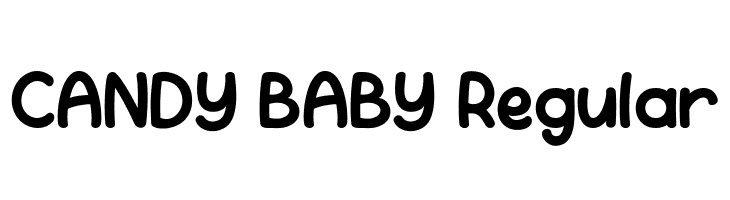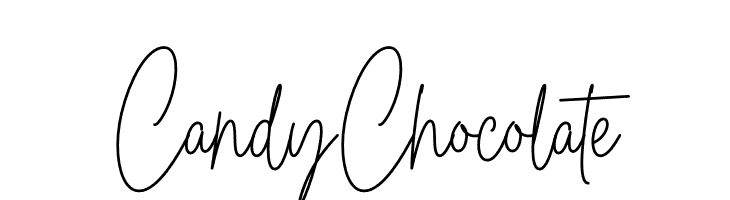
A bold, distressed font with jagged edges and a hand-drawn style.
A playful, hand-drawn font with irregular strokes and whimsical serifs.
A playful, bold, hand-drawn style font with a casual and informal feel.
Illustrative font with mythological figures as characters.
A playful, bold font with rounded, bubble-like characters.
A bold, sans-serif typeface with clean lines and strong legibility.
A modern sans-serif font with geometric shapes and uniform strokes.
A playful, hand-drawn font with a whimsical and informal style.
A bold, geometric font with a playful and energetic style.
An ornate Blackletter font with bold, angular strokes and decorative flourishes.
A traditional Blackletter font with ornate and angular strokes, ideal for historic and formal designs.
A traditional blackletter font with ornate, medieval-style letterforms.
A detailed Blackletter font with ornate, medieval-inspired design.
An ornate Blackletter font with intricate details and an italic style.
A traditional blackletter font with ornate, angular letterforms and a medieval aesthetic.
A modern, minimalist font with thin, uniform strokes and a sleek appearance.
A sleek, modern italic font with thin, elongated characters.
A bold serif font with strong vertical strokes and classic proportions.
A modern, geometric sans-serif font with uniform strokes and excellent readability.
A bold, modern typeface with clean lines and uniform strokes.
A modern, oblique font with clean lines and a dynamic style.
A fluid and elegant script font with a natural, handwritten quality.
A classic serif font with modern elements and unique character designs.
A bold, outlined font with a modern and impactful style.